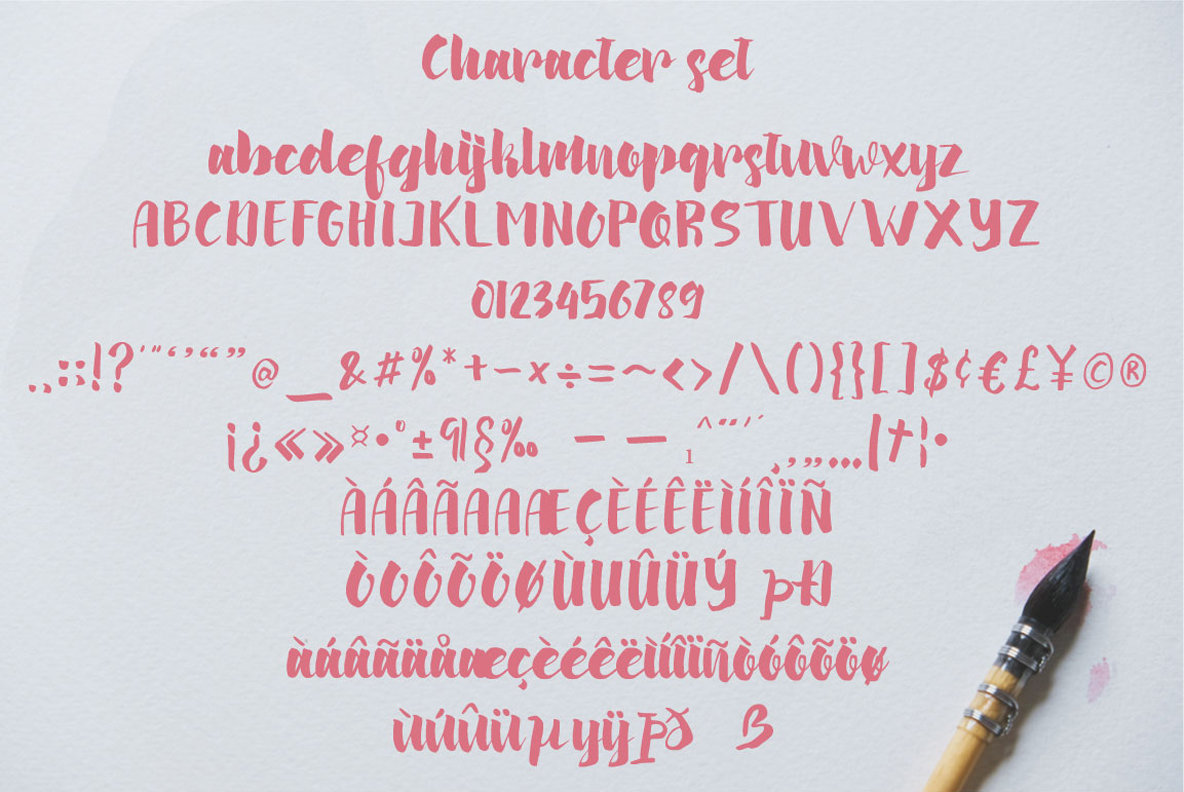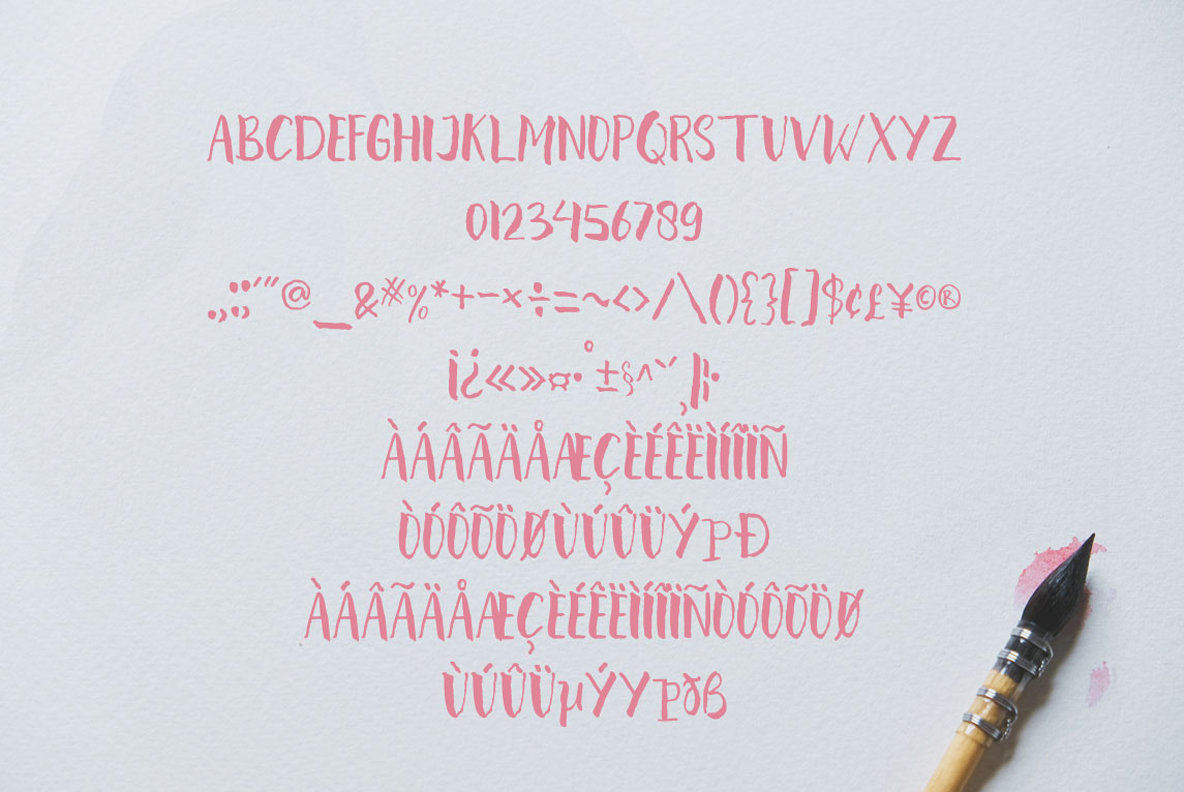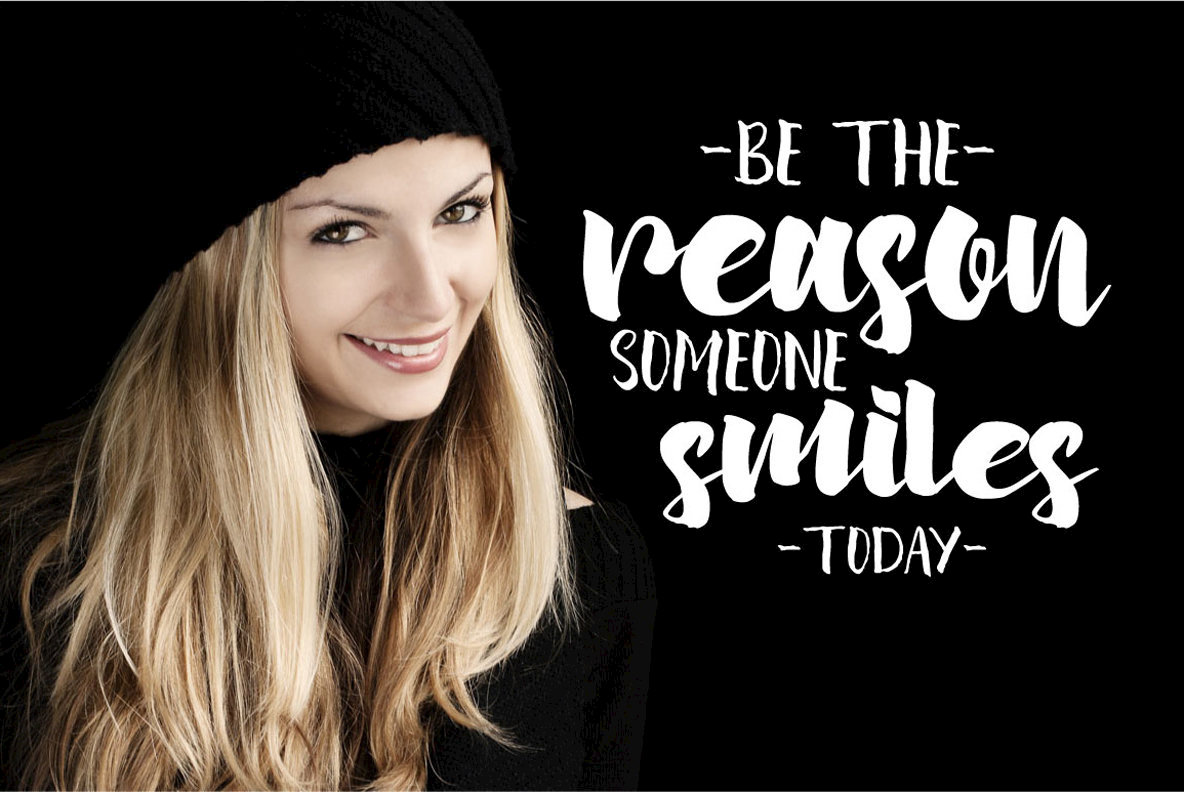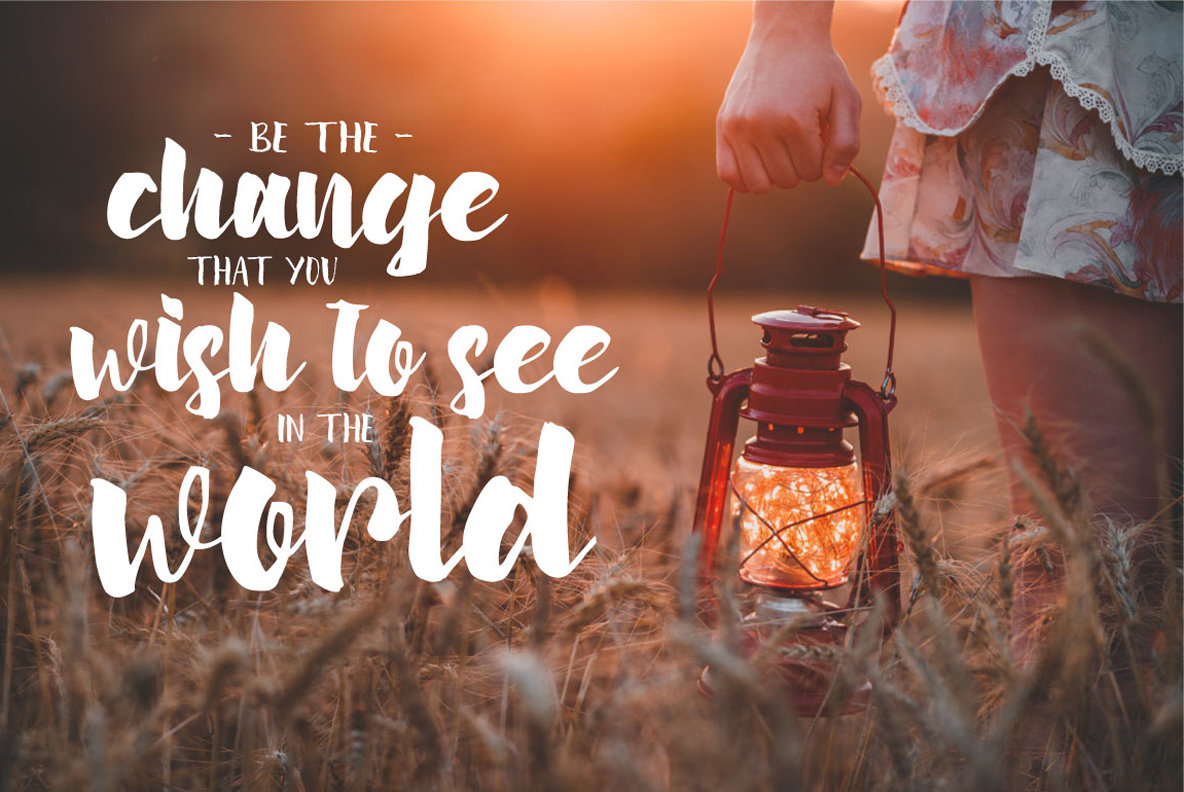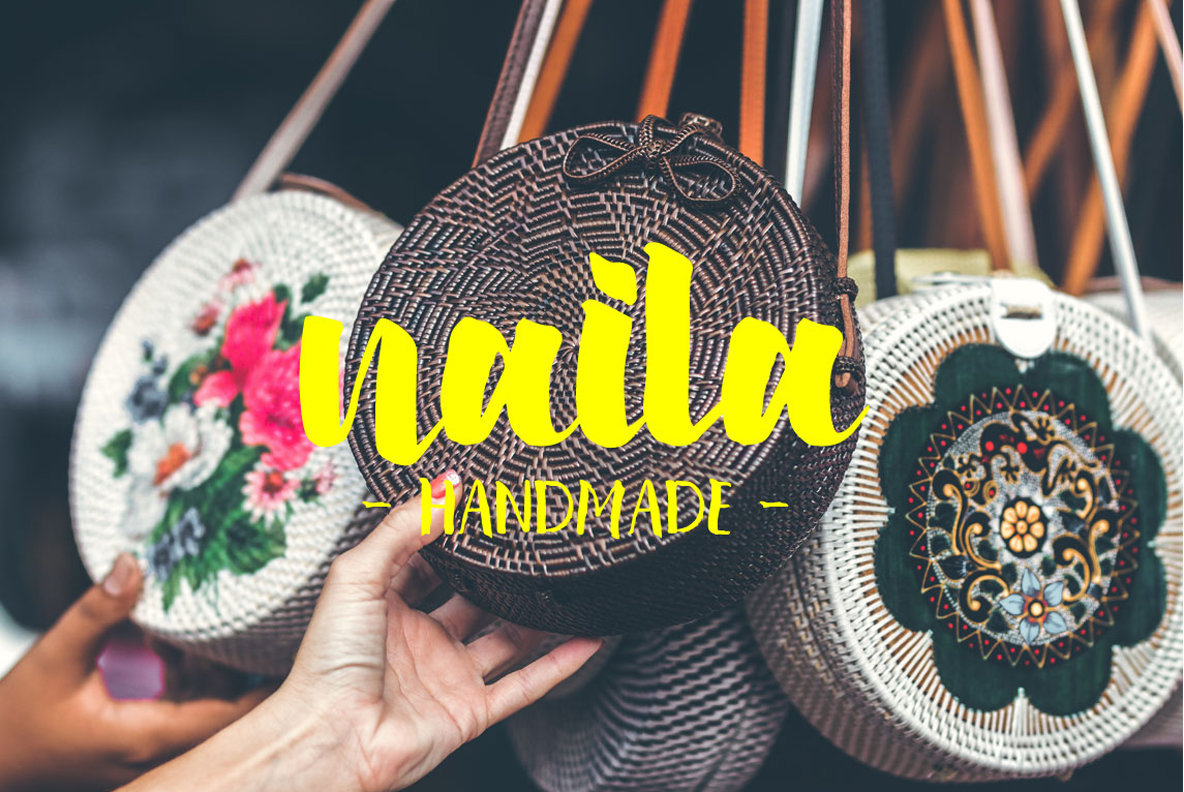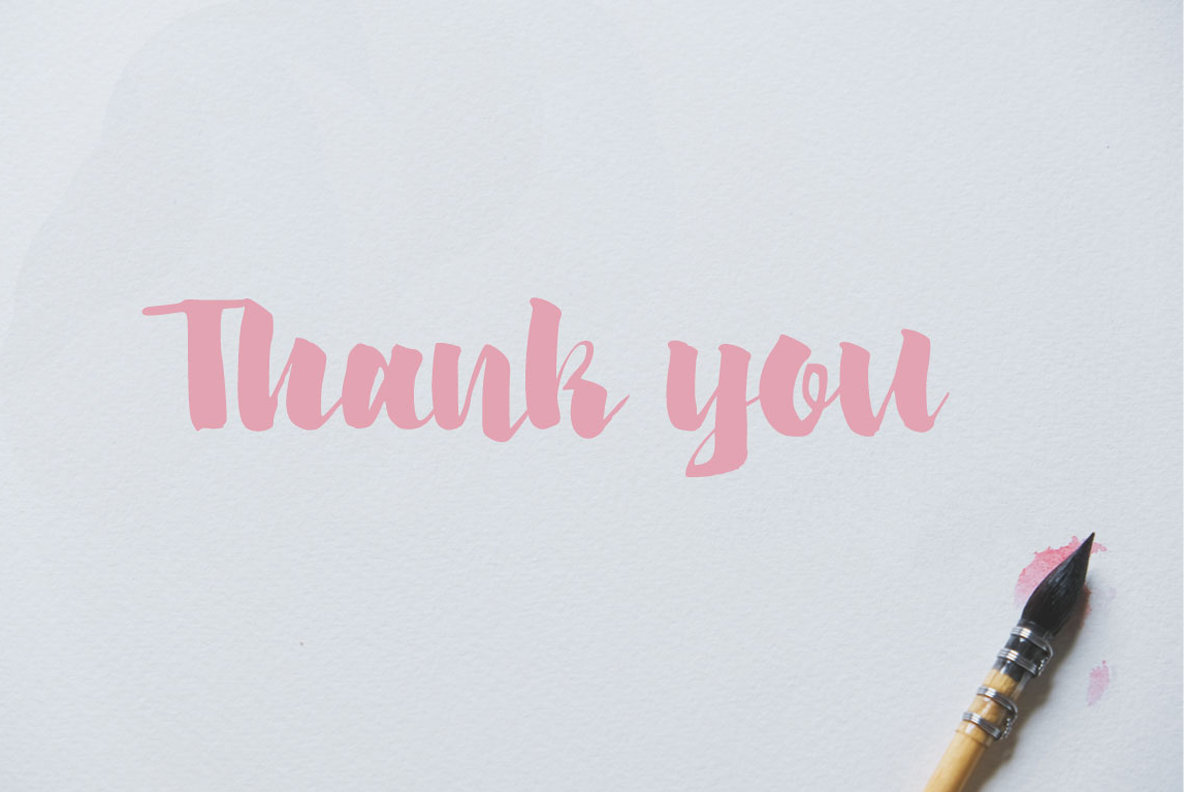
Arinda and Karina Font Duo
The artful combination of the Arinda and Karina font duo brings together a modern brush script with a distinct handmade style and an all-caps font with an elegant flair. Crafted with precision, these fonts deliver a harmonious blend perfect for a variety of design projects. Use this font duo to add a personal touch to invitations, greeting cards, and branding materials. Its versatility also makes it ideal for business cards, quotes, posters, and beyond. Features:Arinda and Karina Font Duo: A Versatile Pairing